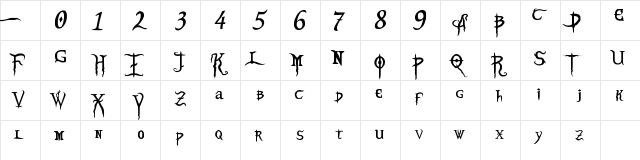
Blood Omen Regular
Design Context for Blood Omen Typeface
Blood Omen carries an unsettling edge — its distorted letterforms are built to unsettle, perfectly suited to horror, Halloween, and dark creative work.
Perfect for anything that needs to unsettle — game titles, horror branding, and macabre invitations.
Font Pairing: Pair with a clean neutral sans-serif for body copy to let Blood Omen's character lead without overwhelming the composition.
Pro Tip: Use Blood Omen at larger display sizes for maximum impact. Consider generous tracking to let the disturbing character of each letterform breathe.